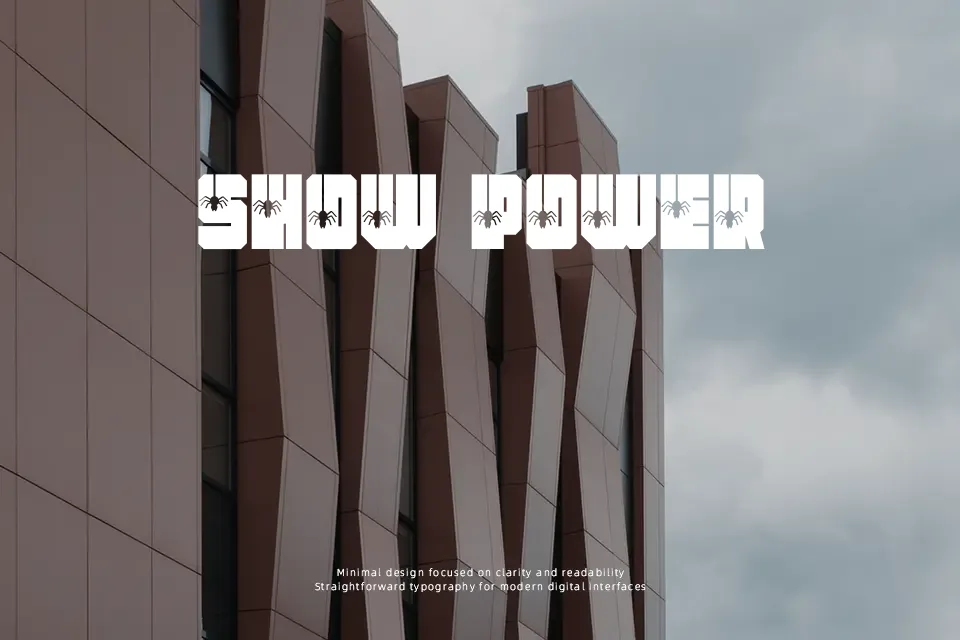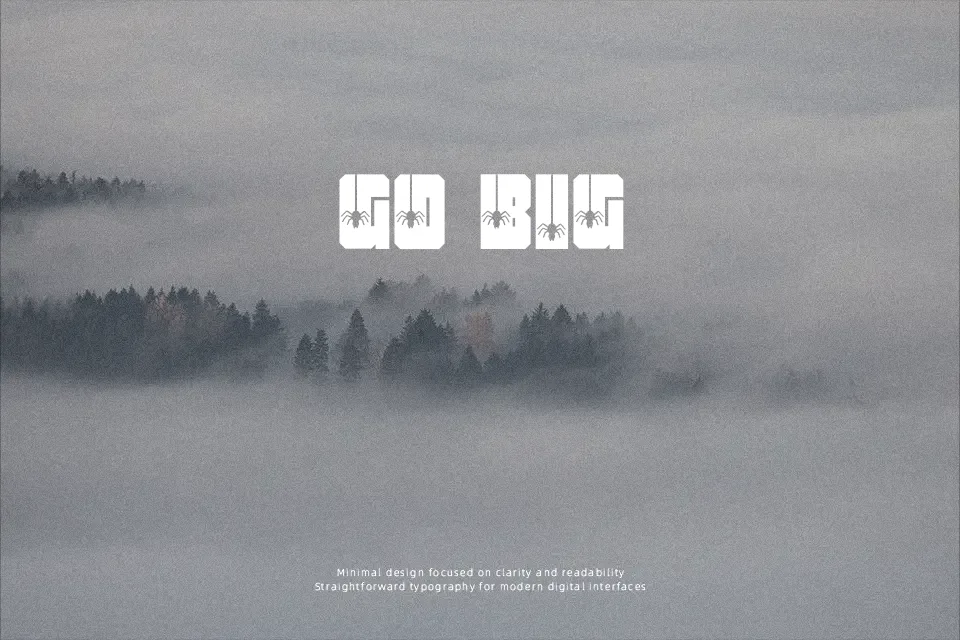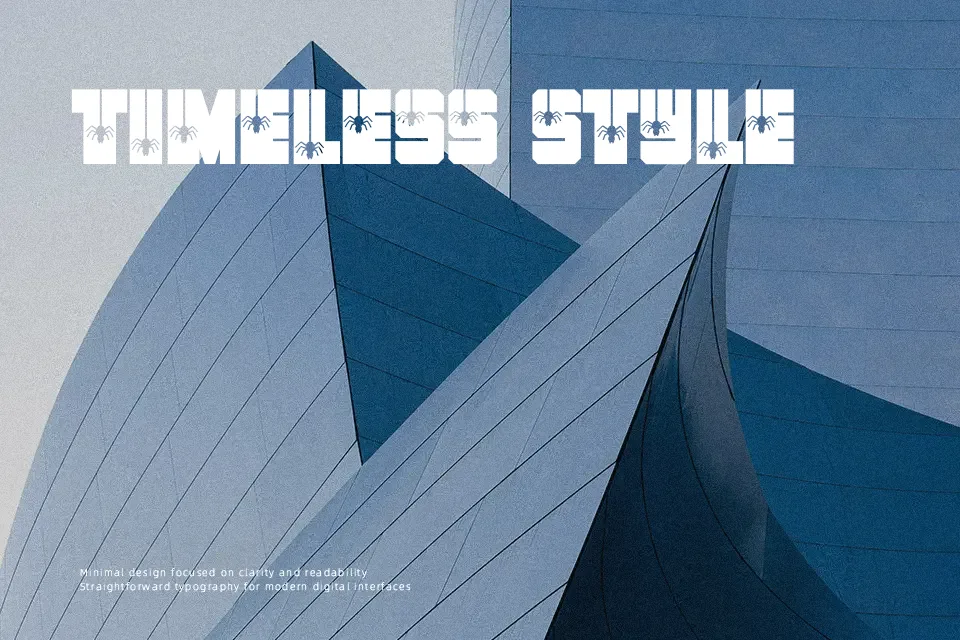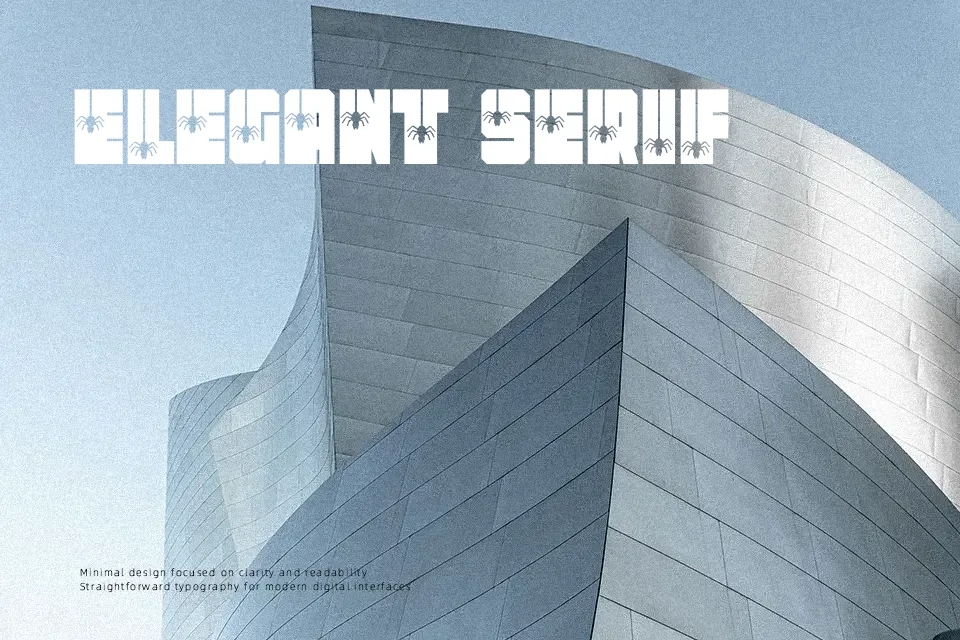
Spider Font
Spider Font is built upon solid, heavy-weighted display letterforms featuring integrated spider silhouettes nestled within every character. The chunky glyphs maintain uniform stroke thickness and balanced proportions, creating an immediate graphic impact across uppercase forms. However, the intricate illustrative additions demand generous kerning and substantial breathing room to avoid visual crowding. While the typeface delivers excellent visual clarity on oversized Halloween posters, festival flyers, and youth apparel graphics, decorative complexities cause smaller text settings to lose definition rapidly. For extended body copy or multi-line editorial layouts, the dense structural ornamentation proves overly distracting and significantly diminishes reading comfort.
Best For: Halloween event posters, themed party invitations, youth apparel graphics, seasonal candy packaging
Not Ideal For: long paragraph text, mobile app interfaces, corporate annual reports, dense editorial layouts
Perfect for halloween, headline, and kids, with a bold and cartoon style.